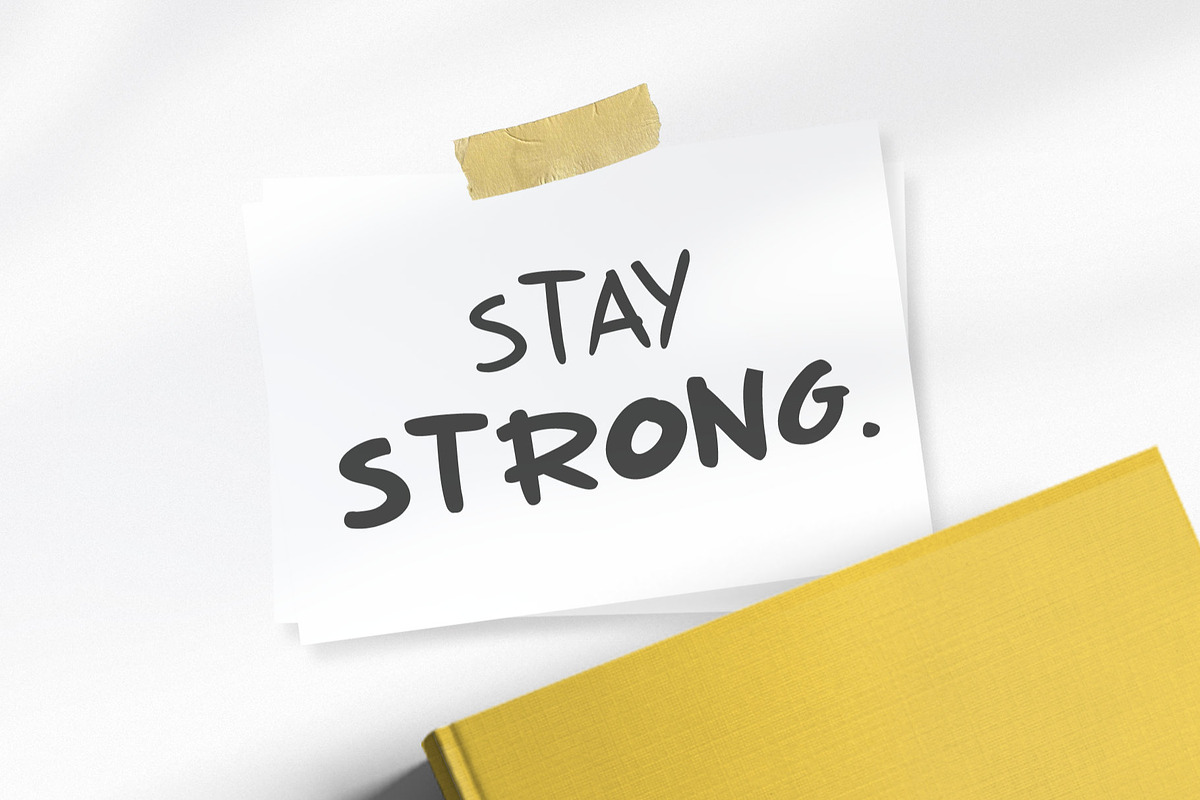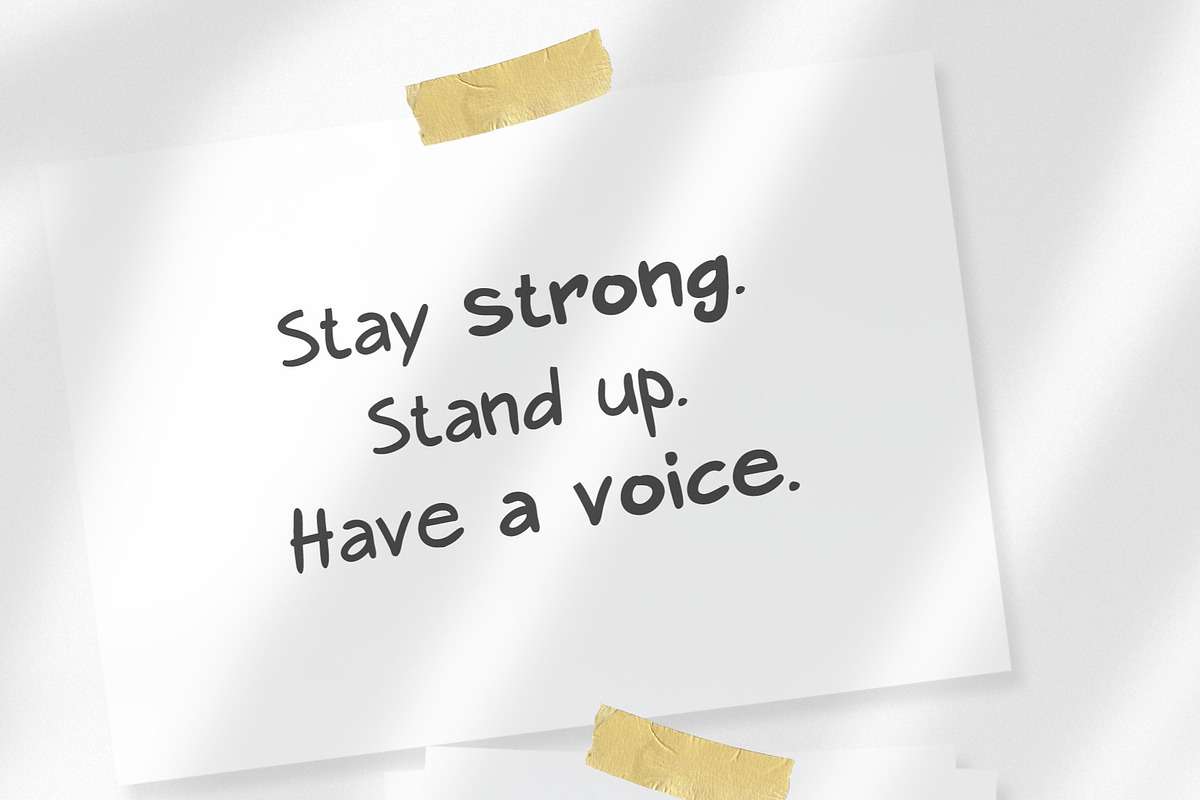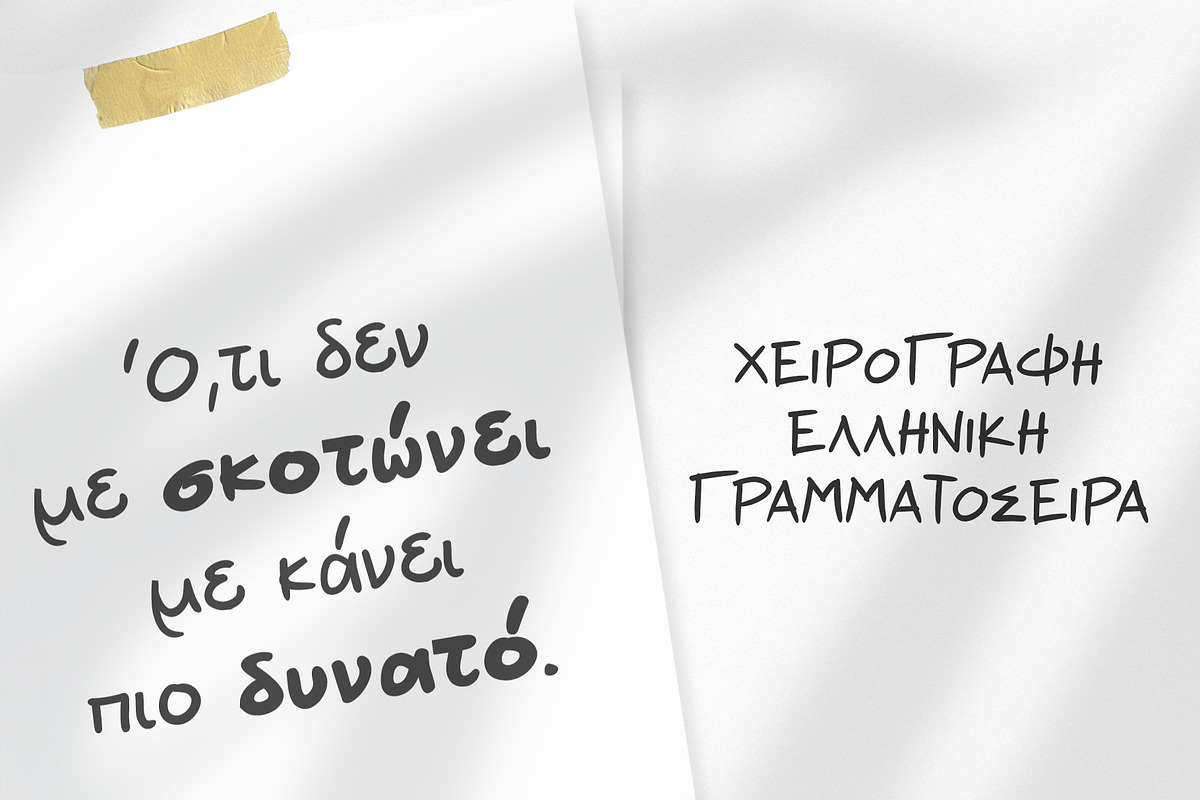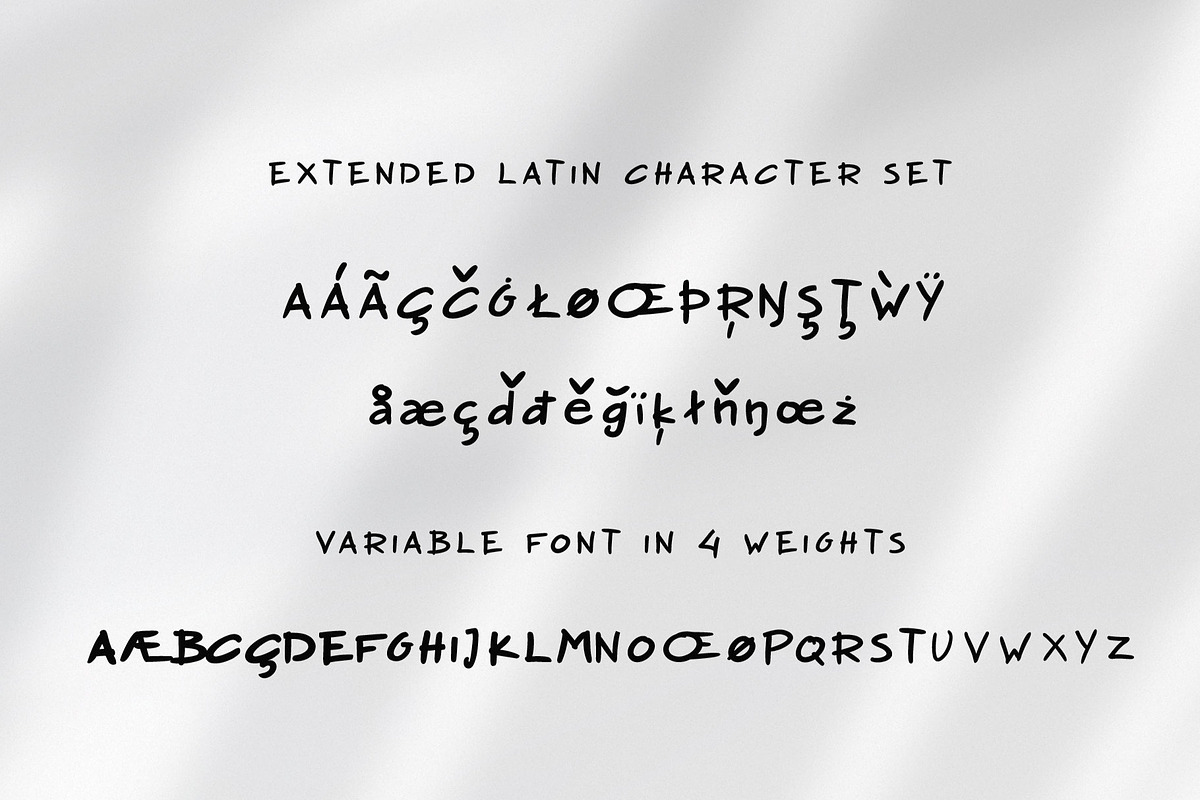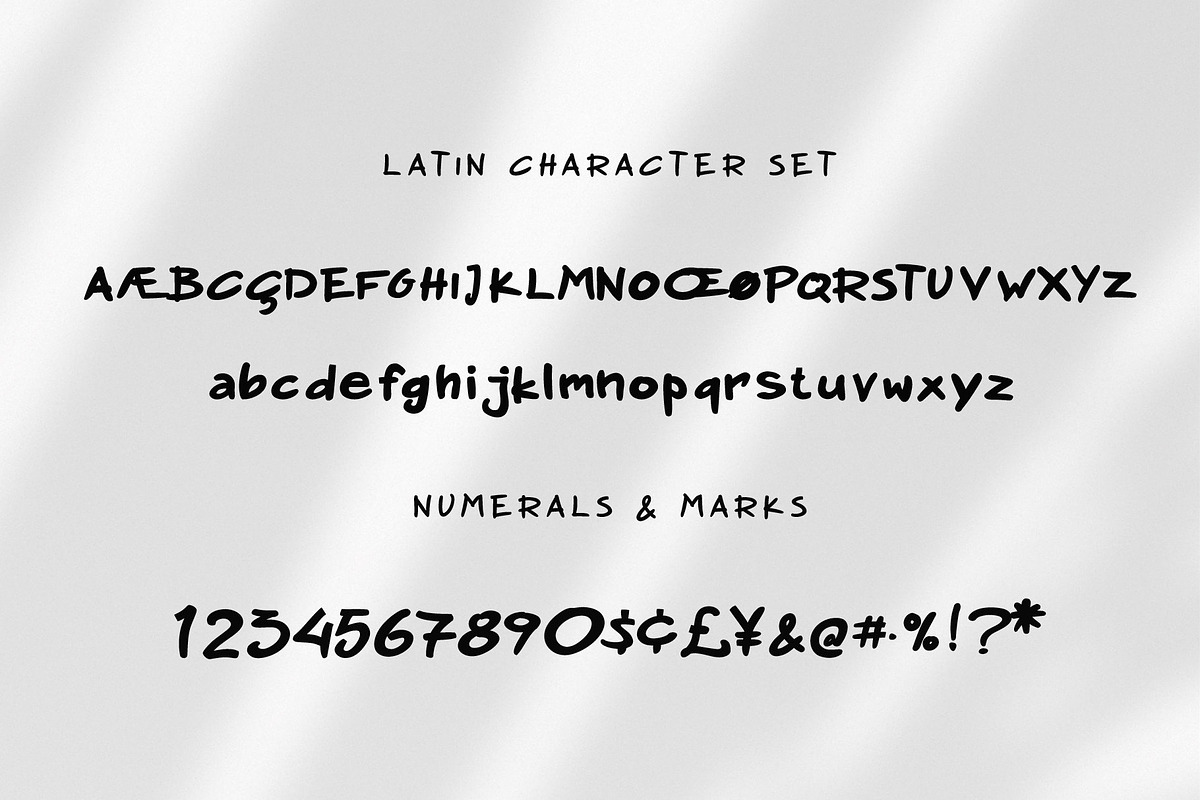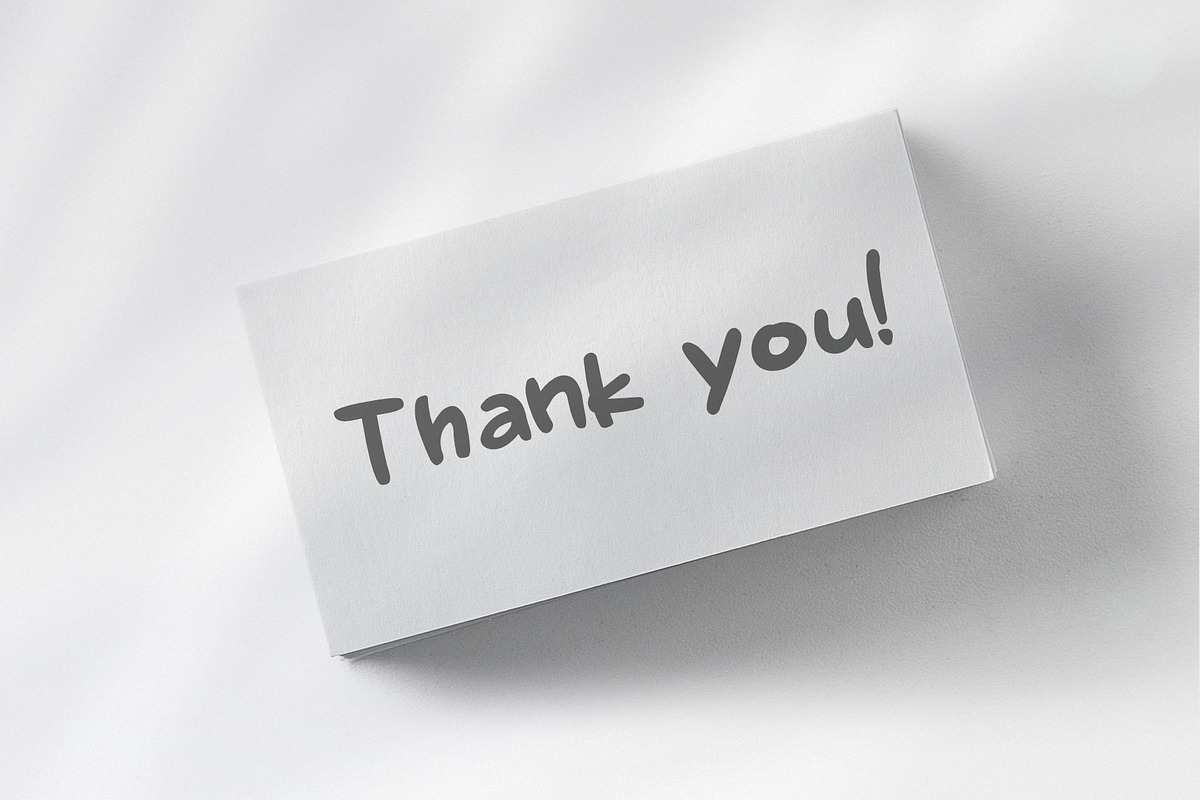
Greek Font Variable Handwritten
Nadoco Variable Handwritten Font
This font is an adorable hand-made variable font with five weights and a lot of personality. From "hand-written" quotes on Pinterest and Instagram to product packaging design, and food branding projects, this font is so versatile that it can cover them all.
Extended Latin Characters
Numerals in five weights.
What is a variable font? A variable font is a single font with many weight variations (or any other variations, like width or slant) enclosed in a single font file.